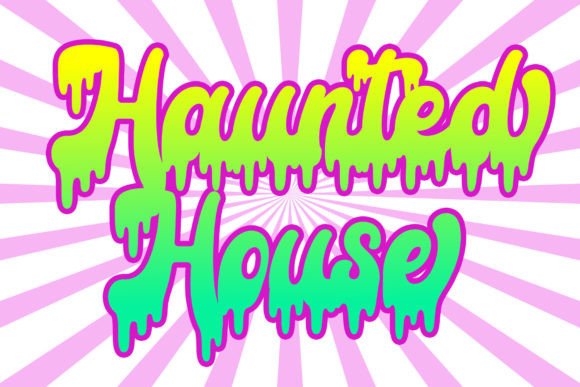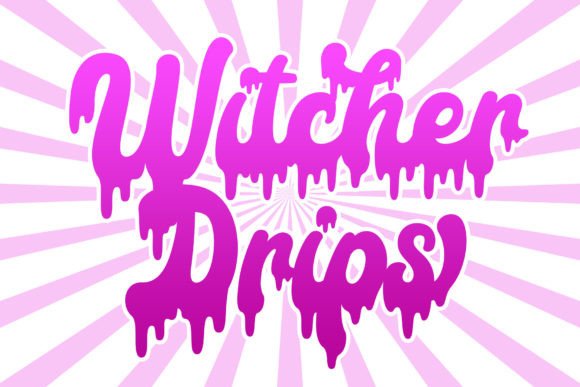
Introduction to Slime Font
Slime Script is a cool, vintage-style script Bold font.
Use it to add that special retro and slime touch to any design idea It can be used for logos, branding, invitations, stationery, wedding designs, social media posts, and much more.
Slime Font offers exceptional quality and versatility, making it a valuable addition to your design toolkit. Whether you’re creating for personal projects or commercial use, Slime Font delivers professional results.